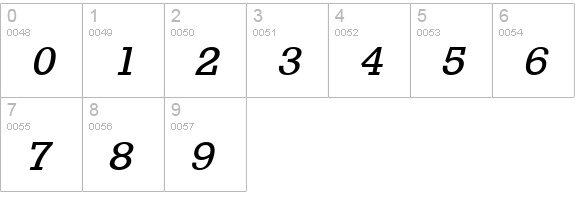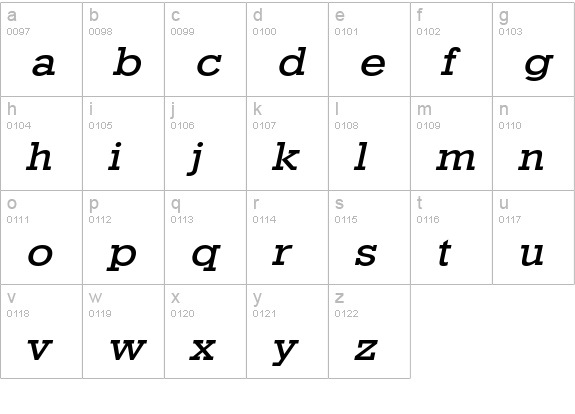
Geo 986 Wide Italic is a distinctive, extended-width, italic variant in the Geo typeface family \xE2\x80\x94 well suited to design and typography projects.
Introducing Geo 986 Wide Italic font, a sleek and modern typeface perfect for adding a touch of sophistication to your designs. With its wide and italicized form, this font exudes a sense of elegance and style. The distinctive geometric shapes of the letters make it a versatile choice for various design projects, from branding to editorial layouts. And the best part? Geo 986 Wide Italic font is available for free download at FontsMarket.com. Now you can elevate your designs without breaking the bank. Don't miss out on this opportunity to enhance your projects with this stunning typeface. Download Geo 986 Wide Italic font today and bring a touch of contemporary flair to your creations.